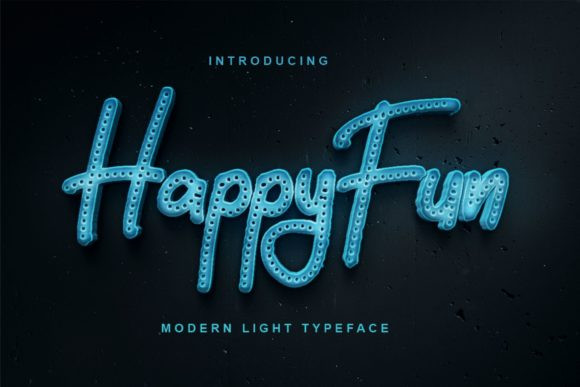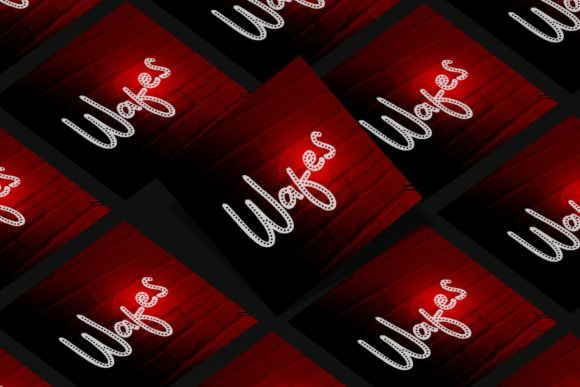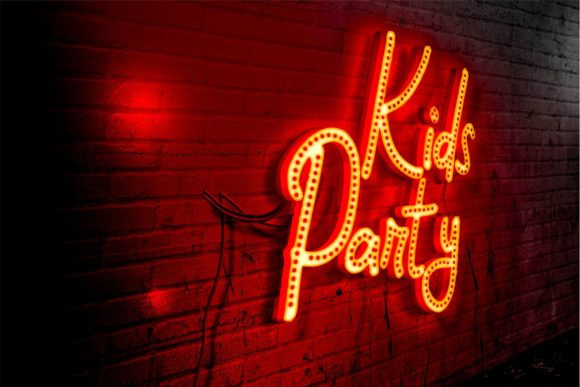
HappyFun Font
HappyFun is an awesome display font. It will elevate a wide range of design projects to the highest level, be it branding, headings, wedding designs, invitations, signatures, logos, labels, and much more!